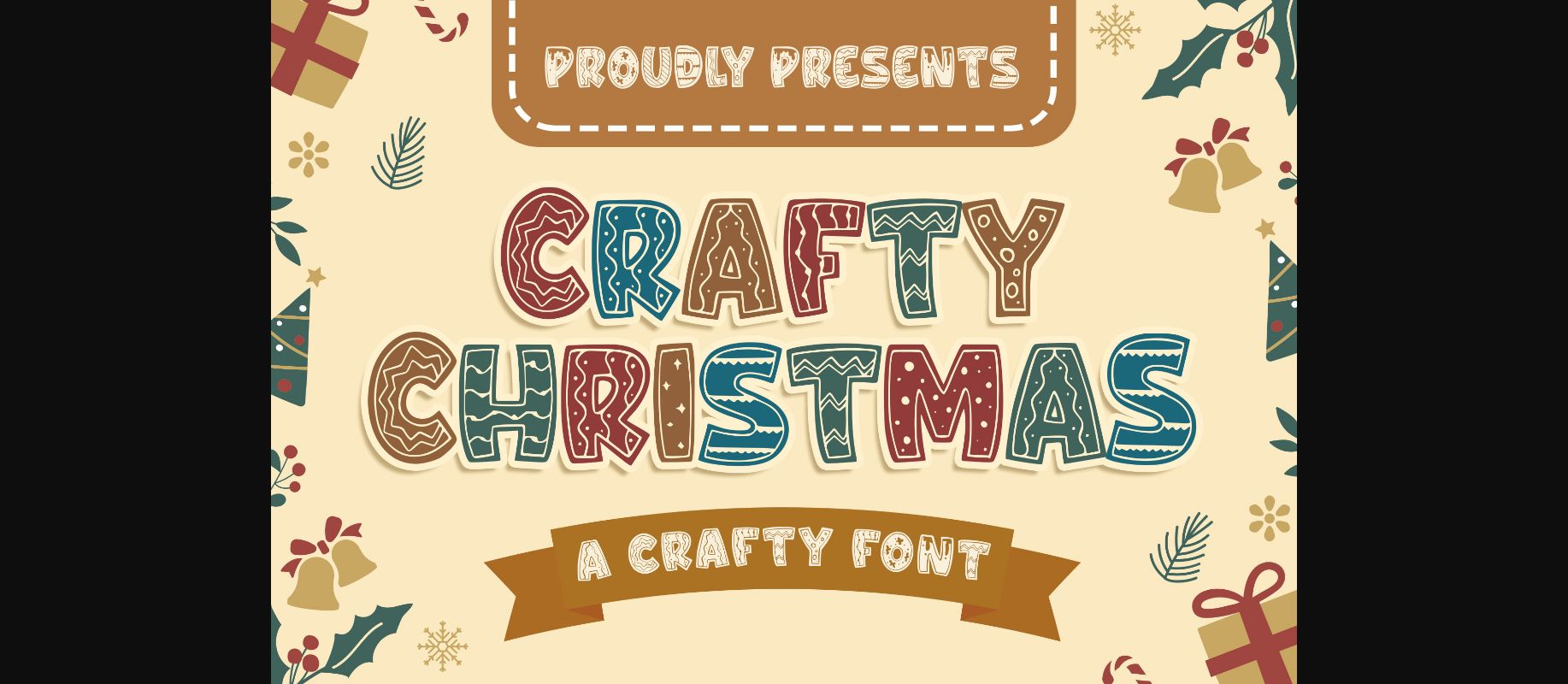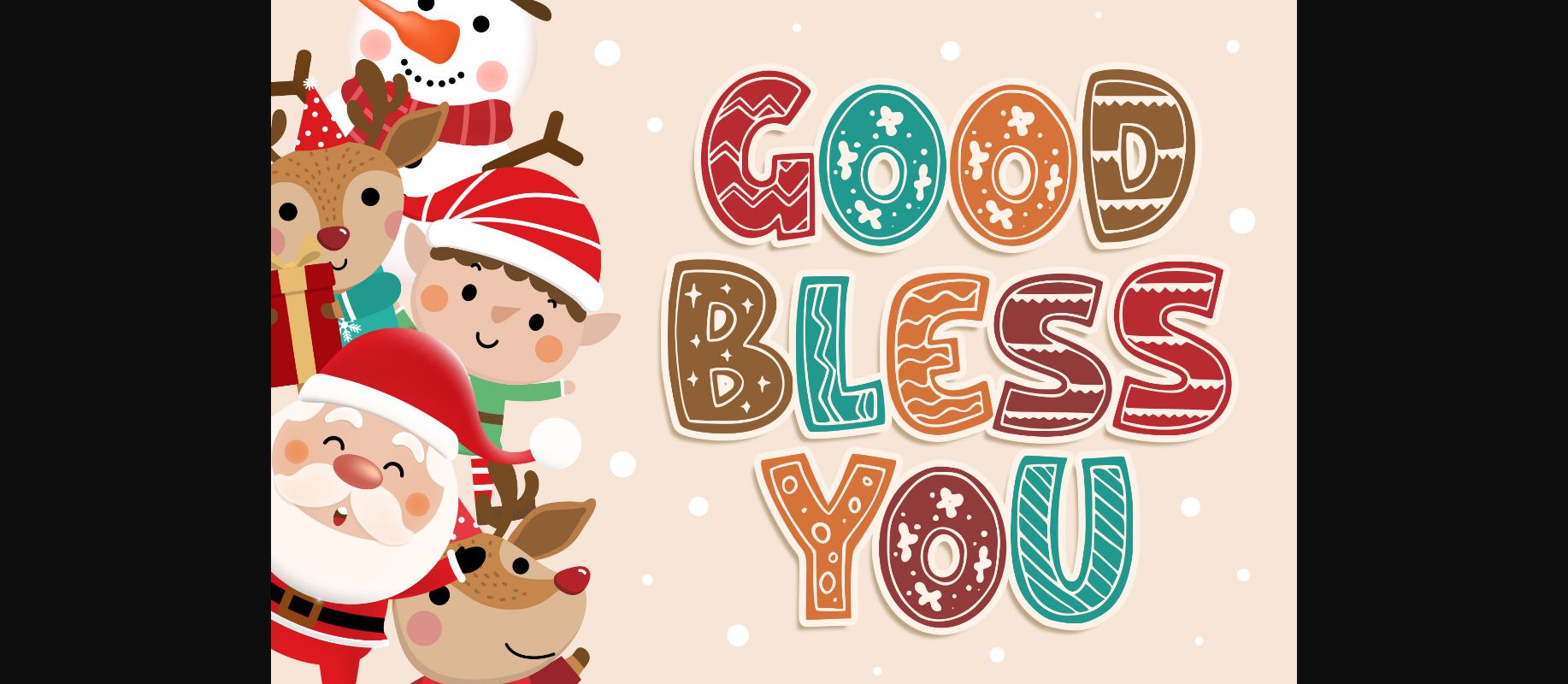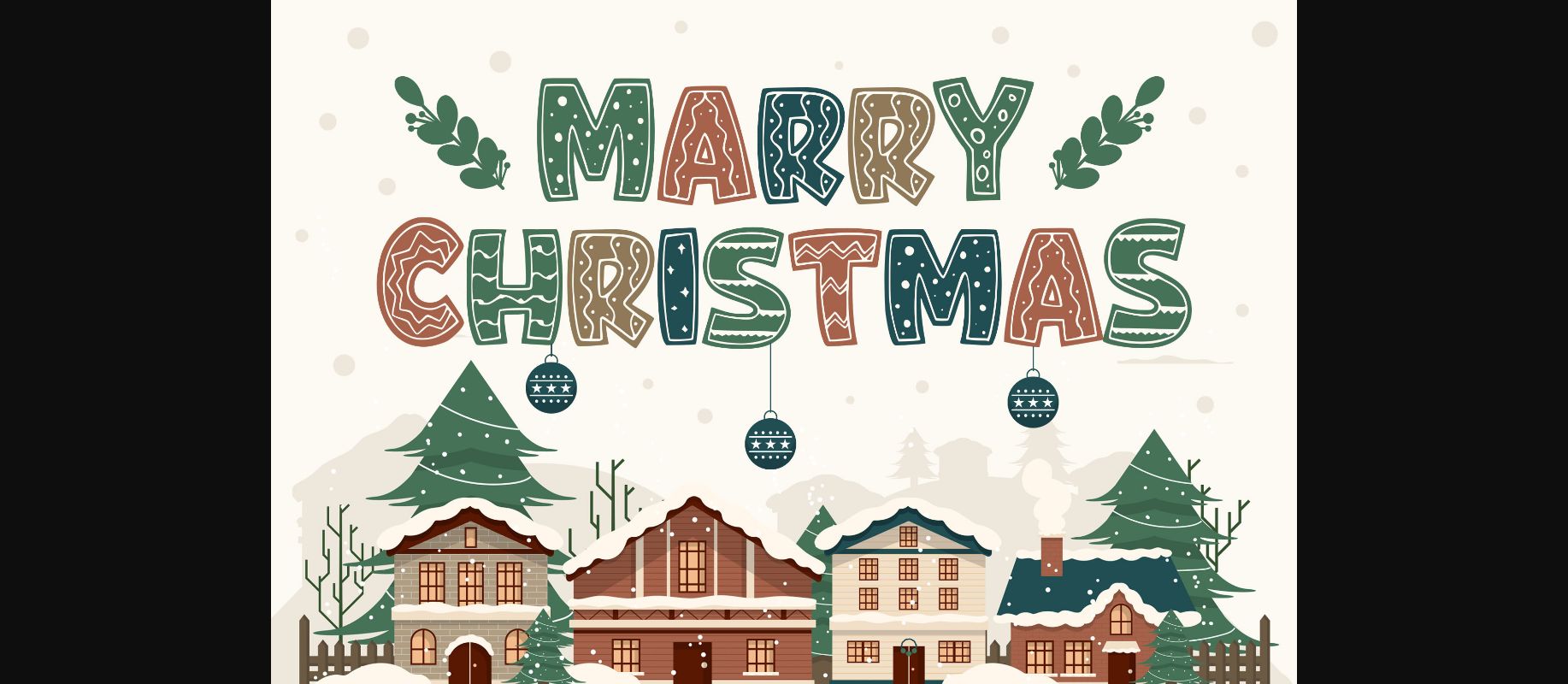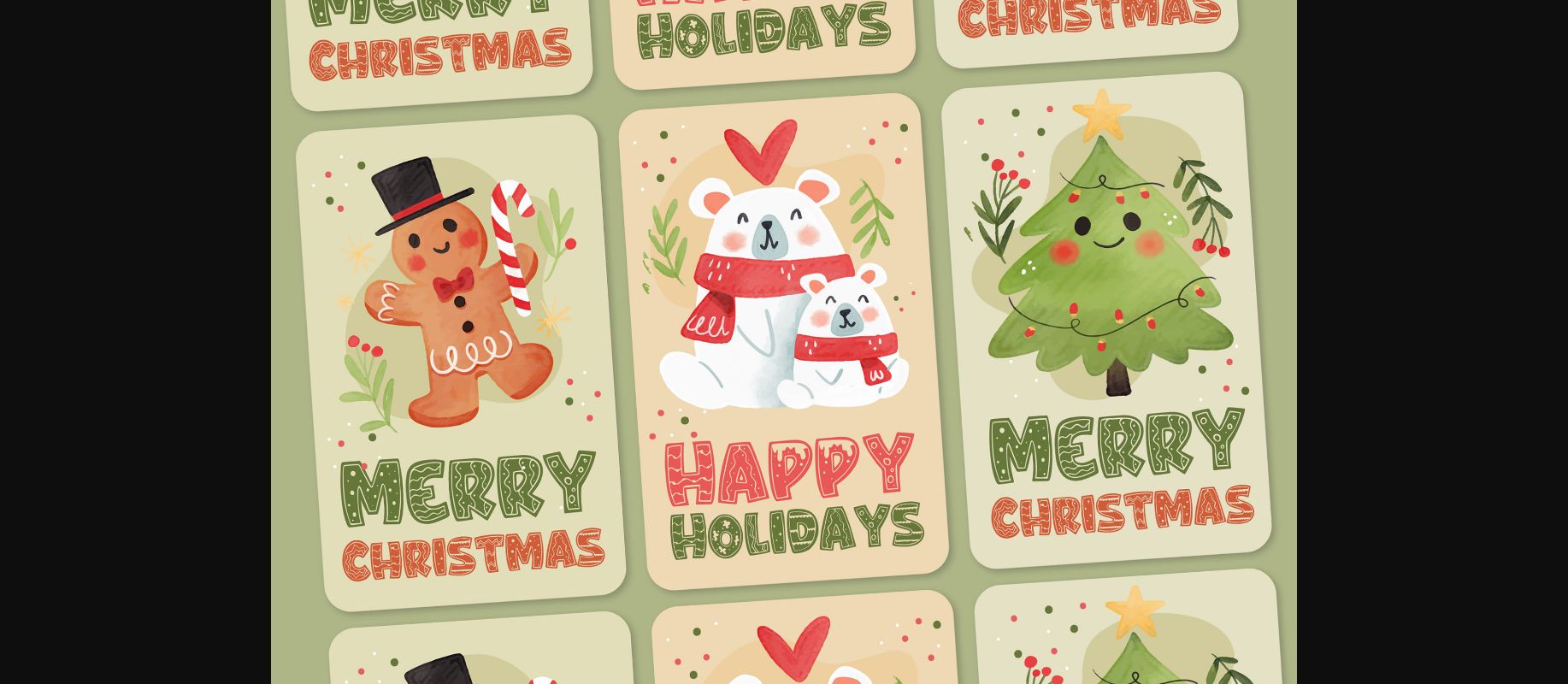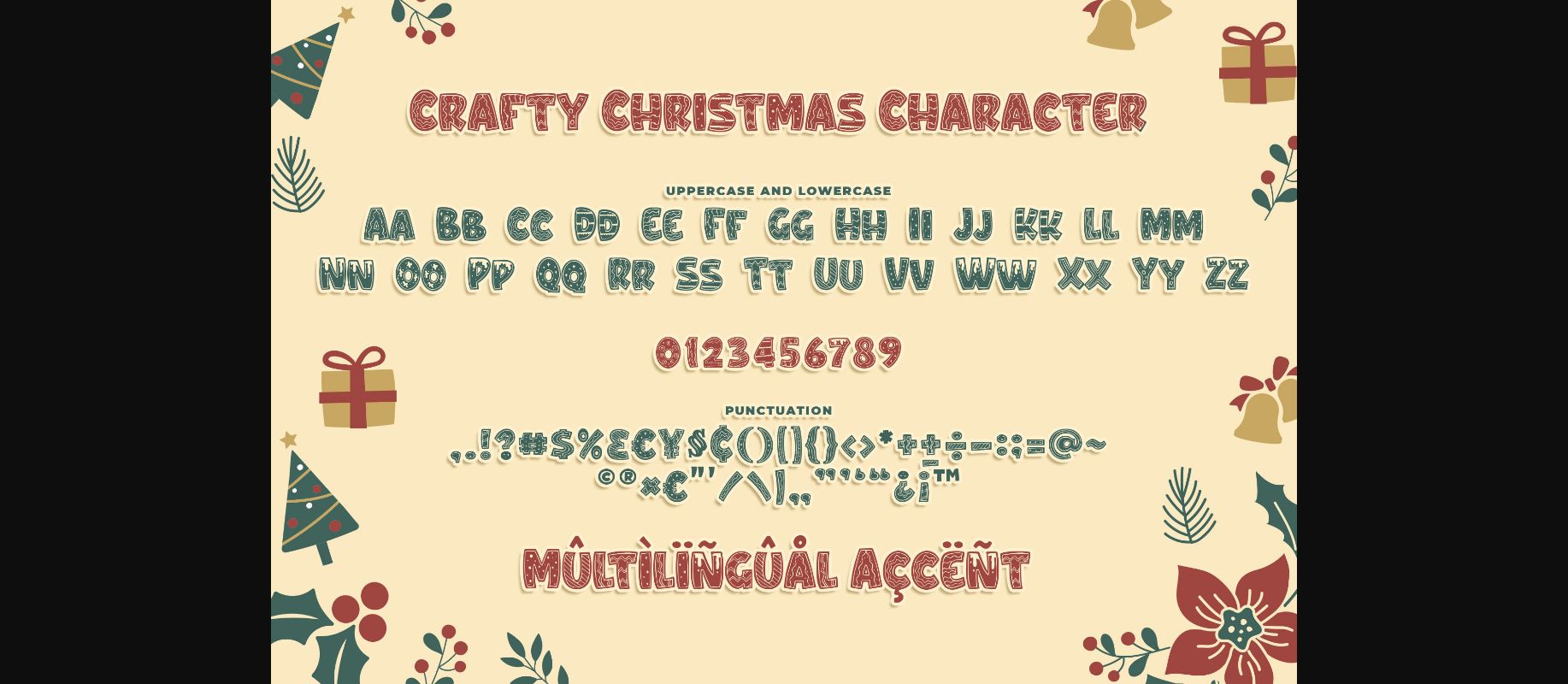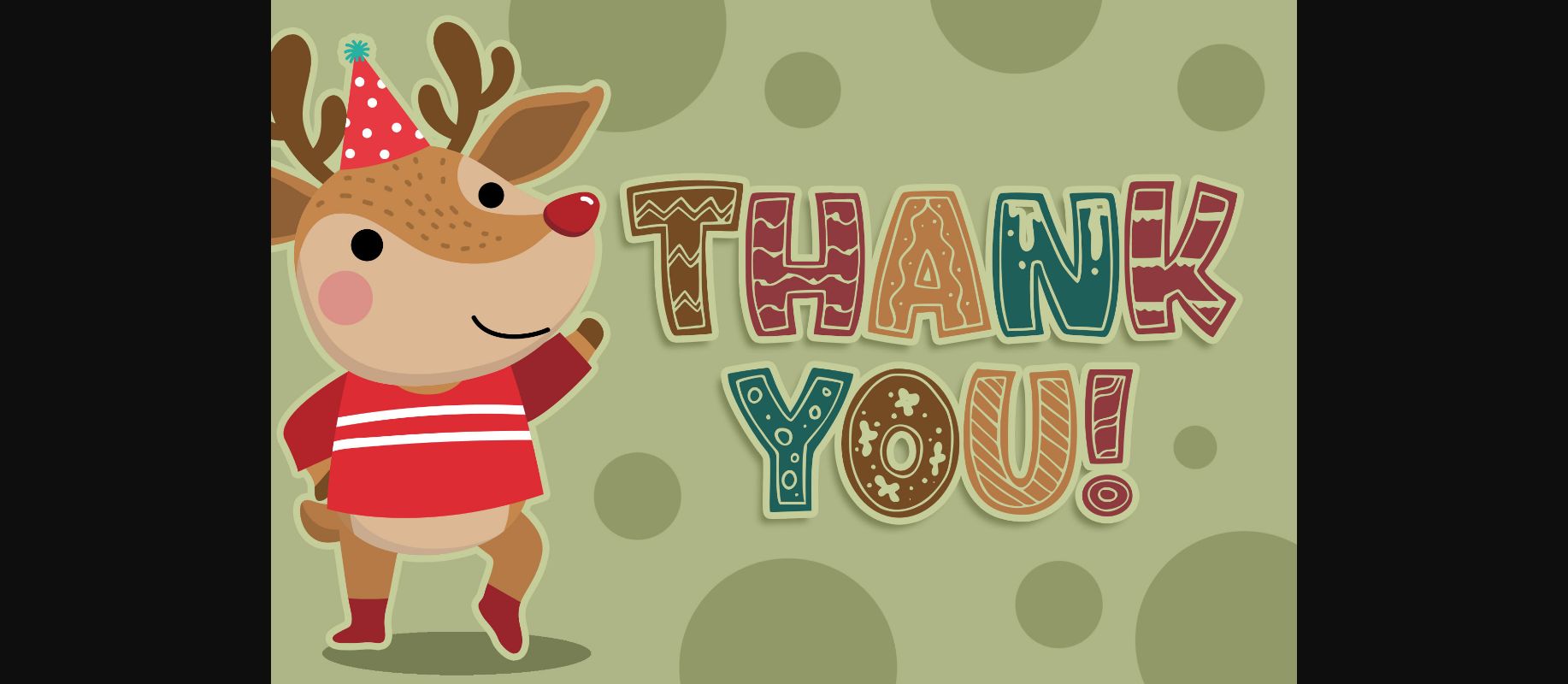
Crafty Christmas Font
About Crafty Christmas Font
Crafty Christmas is a fun, festive and highly detailed decorative font. Whether you’re using it for crafts, digital design, presentations, or making greeting cards, this font has the potential to become your favorite go-to font, no matter the occasion!